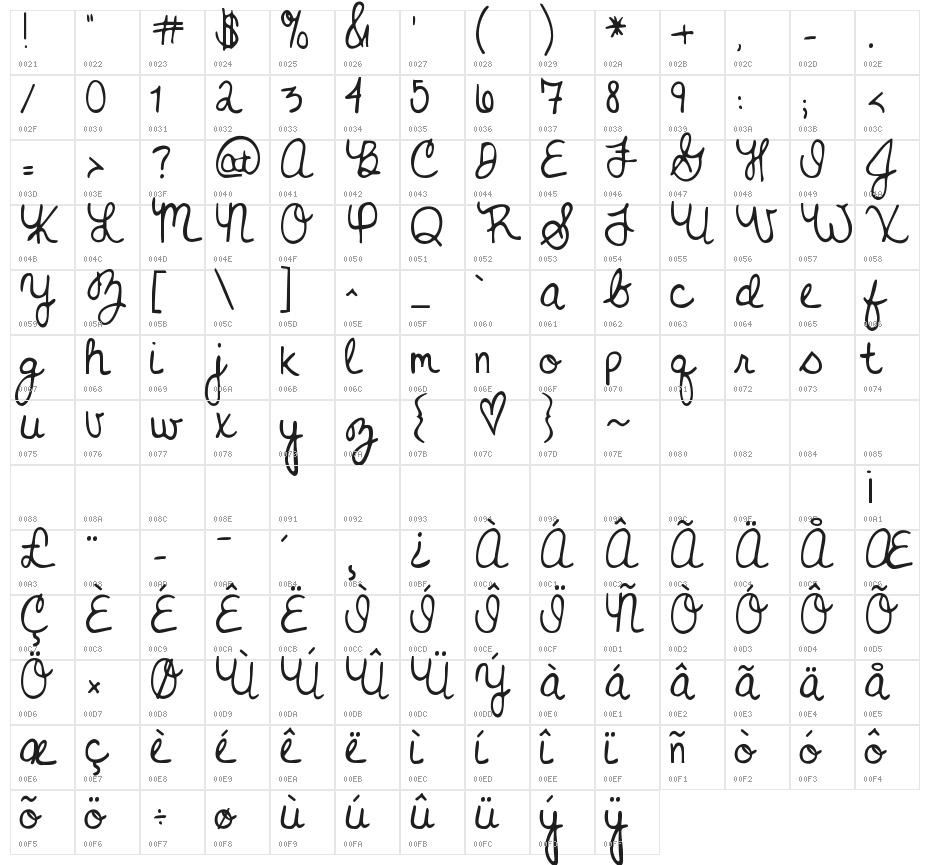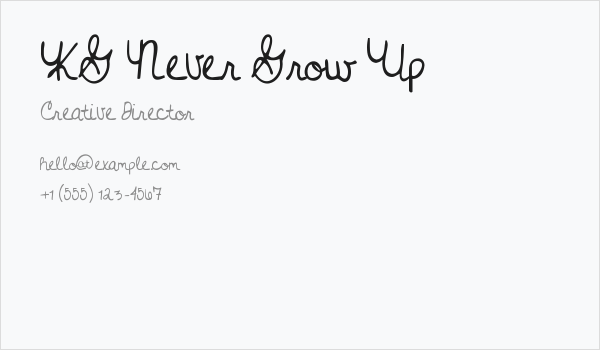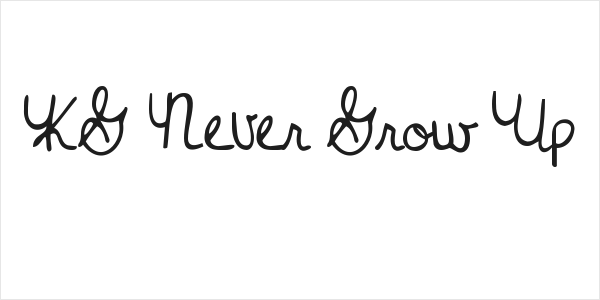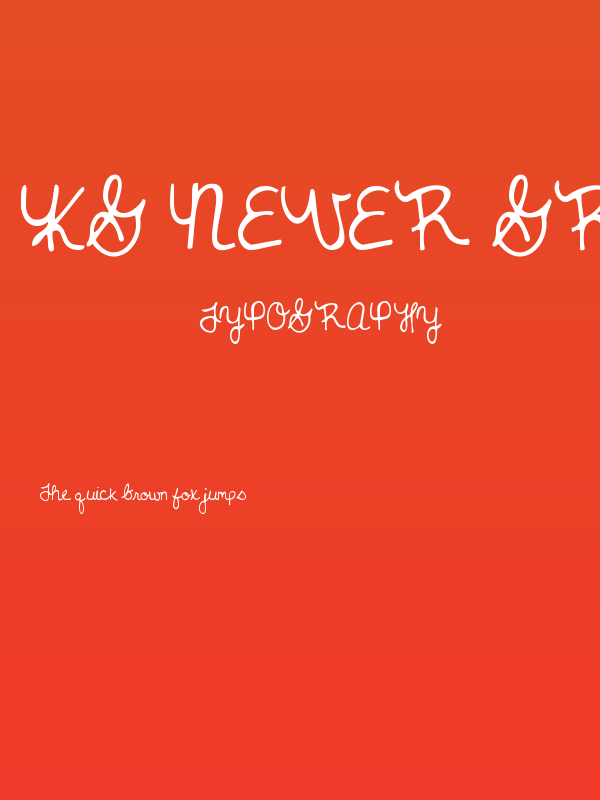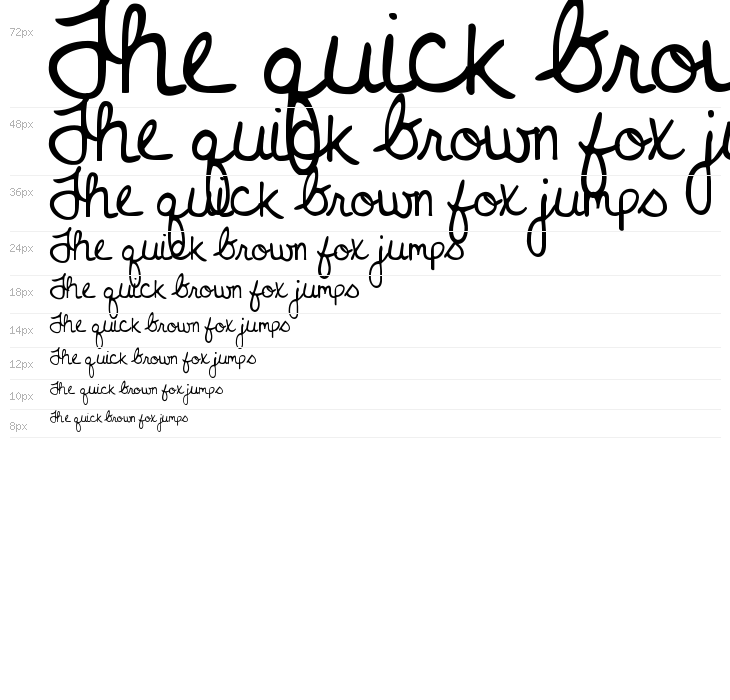
KG Never Grow Up Font
KG Never Grow Up Description
This playful and whimsical font features a handwritten style that exudes a sense of youthful exuberance. The characters are crafted with a smooth, flowing script that mimics the natural movement of handwriting. Each letter is distinct yet harmoniously blends with others, creating a cohesive and lively appearance. The uppercase letters are slightly more elaborate, with loops and curves that add a touch of elegance. The lowercase letters maintain a consistent style, offering readability while retaining a casual charm. Numbers and special characters are designed to match the overall aesthetic, ensuring versatility across various applications. The font's informal and friendly nature makes it ideal for projects that require a personal touch.
| Proposed Projects | Ideal for children's books, greeting cards, playful branding, and informal invitations. |